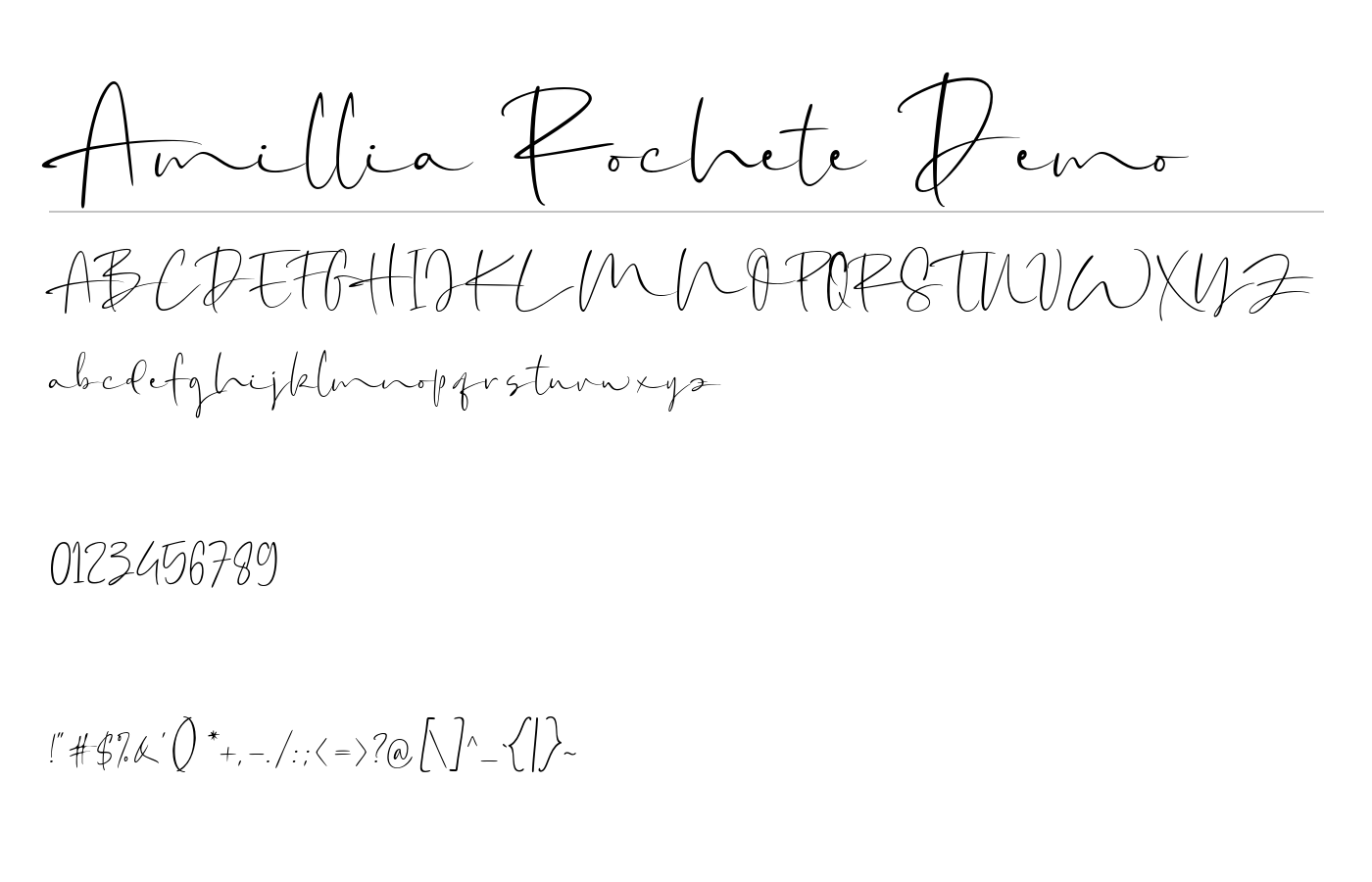
Amillia Rochete Demo is a delicate, handwritten script font with a light, airy feel and thin, flowing strokes that mimic elegant penmanship. Its tall, slender letterforms, playful loops, and natural irregularities give it a personal, artistic touch suited for creative branding, invitations, and stylish headlines. This font works beautifully where a sophisticated yet casual handwritten look is desired, adding charm and personality to fashion, lifestyle, or boutique projects.
Amillia Rochete Demo Font